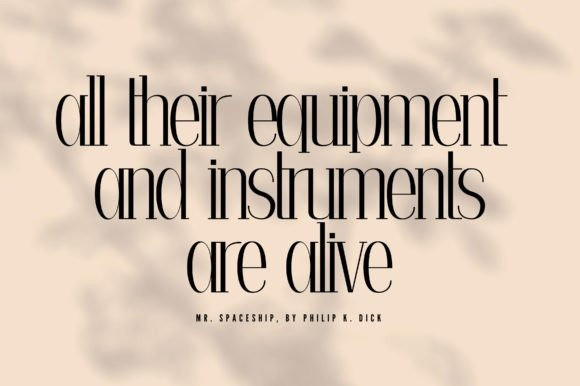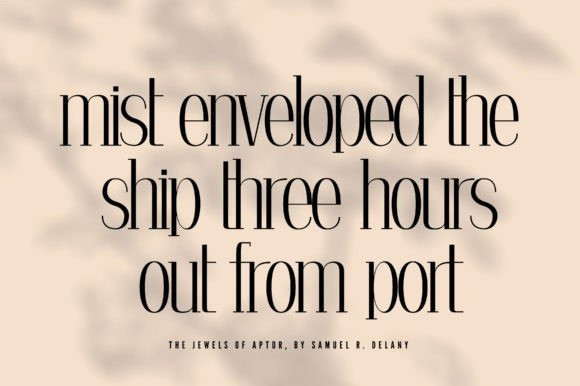
Diana Serif Font, a sophisticated and stylish slab serif font that exudes elegance and minimalism. Designed with a delicate touch, every curve and stroke of Diana has been crafted with precision and care, resulting in a typeface that is both refined and eye-catching.
With over 604 glyphs to choose from, Diana provides a wealth of options for designers and creatives to play with. From basic Latin characters to extended Latin, Cyrillic, and even Greek alphabets, this font is versatile and adaptable to a wide range of design projects.
The subtle serifs of Diana add a touch of class and sophistication to any design, while the clean lines and simple forms make it easy to read and understand. Whether you’re creating a logo, poster, or website, Diana’s minimalist aesthetic will help your message shine through without distraction.
Perfect for fashion brands, high-end product packaging, or any design that requires a touch of elegance, Diana is the ideal choice for designers who want to create a lasting impression with their work. Download it now and see how it can elevate your designs to the next level.